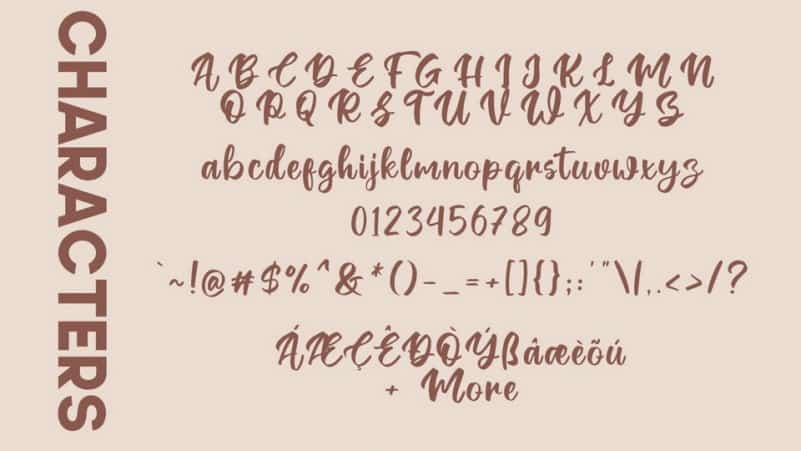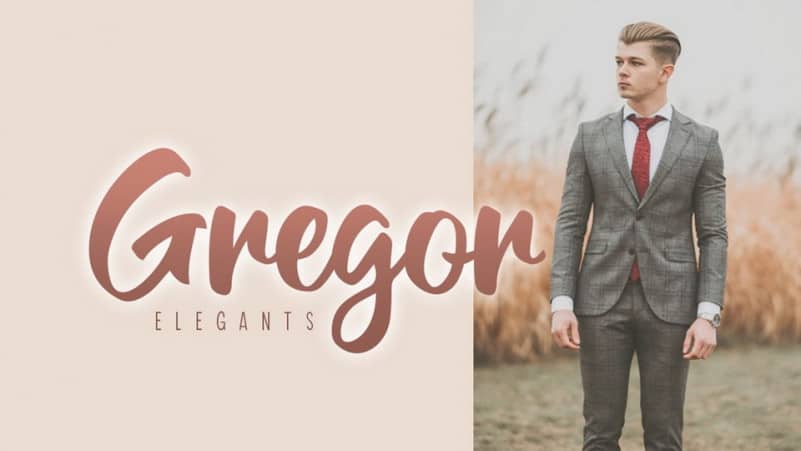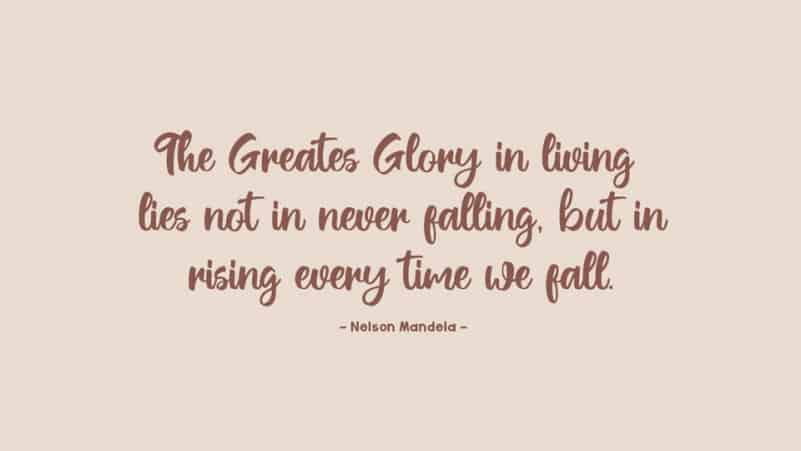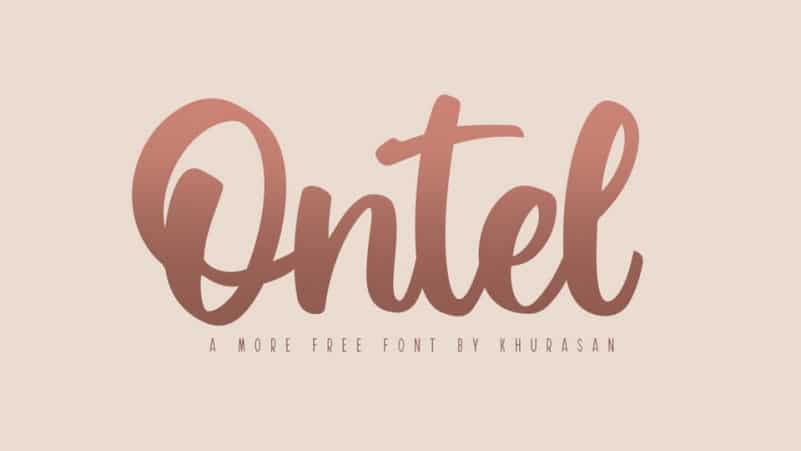
Ontel Script Font
Ontel Script Font – is a Cute & Authentic Script typeface with a natural handwritten feel. It has sweety swash that are perfect for any creative design. This handmade font will make your design has a beautiful natural touch for each details. A free natural hand painted brush font with a playful look. The font is perfect for branding and social media, packaging, crafts and more.